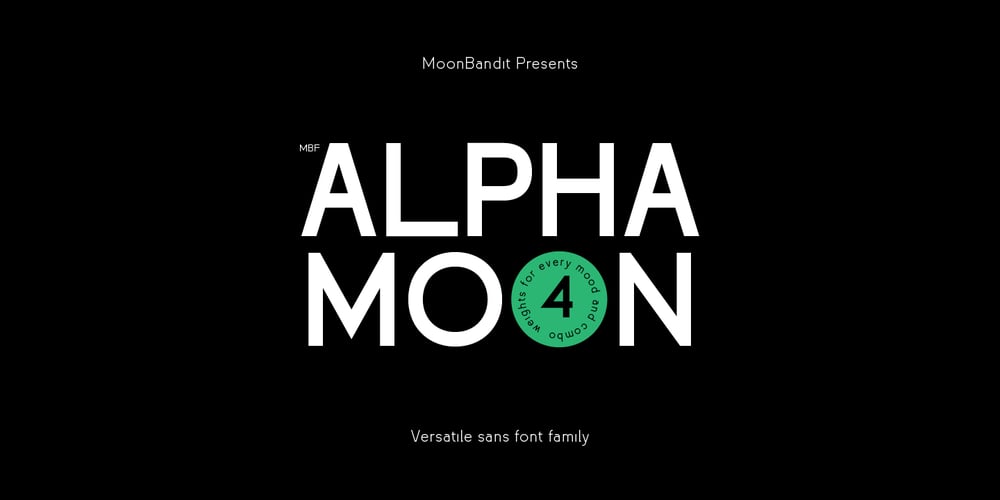
MBF Alphamoon Font Family was designed by Bramaji Dipa Manggala and published by Moonbandit. MBF Alphamoon contains 4 styles and family package options. AlphaMoon is a very versatile all-rounder font family. This typeface is crafted to be a go-to font for multi purpose project. From logo, poster, headline, text, editorial, you name it, AlphaMoon can handle it. This type family also comes in 4 weights, capable to achieve contrast in the work.